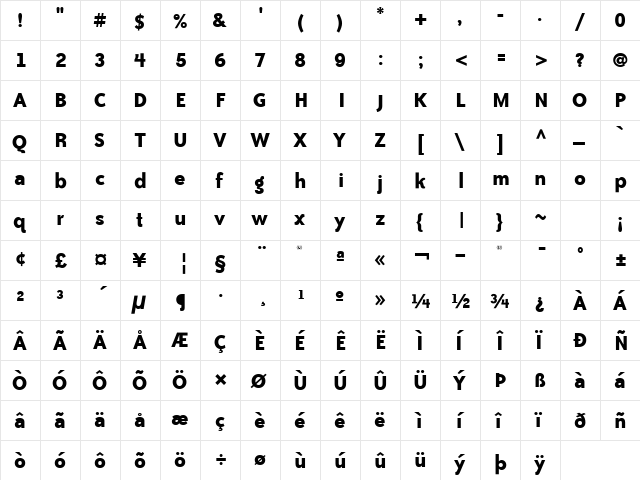
BaileySansITC Bold
Design Context for BaileySansITC Typeface
BaileySansITC takes a measured approach to typography — its balanced proportions and neutral character make it a reliable workhorse for both digital and print work. Its bold stroke weight gives it real presence on the page.
Pro Tip: Use BaileySansITC in both headline and body roles to test its range before committing to a single application.